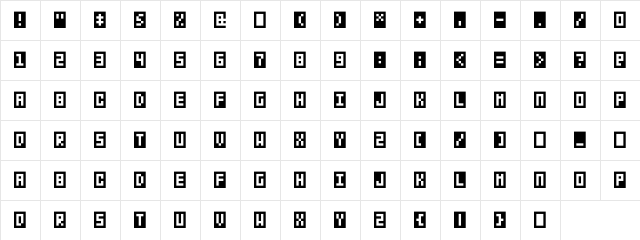
BitBox Regular
Design Context for BitBox Typeface
BitBox takes a measured approach to typography — its balanced proportions and neutral character make it a reliable workhorse for both digital and print work.
Pro Tip: Use BitBox in both headline and body roles to test its range before committing to a single application.